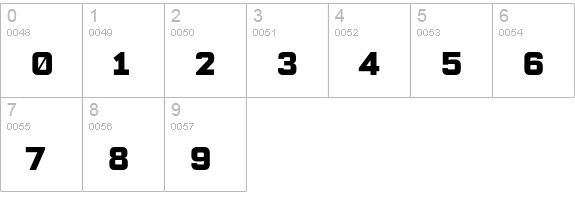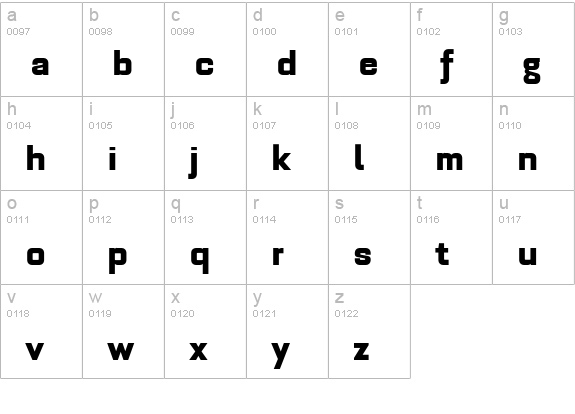
Bourgeois Ultra is an extreme-weight, display variant in the Bourgeois typeface family \xE2\x80\x94 well suited to extreme display use where maximum visual weight is required.
Bourgeois Ultra font exudes sophistication and elegance with its sleek and modern design. The sharp lines and refined curves of this typeface make it perfect for adding a touch of luxury to any project. From branding to editorial design, Bourgeois Ultra commands attention and conveys a sense of style and class. What sets Bourgeois Ultra apart is not only its exquisite design but also the fact that it is available for free download at FontsMarket.com. This means that you can easily access and use this stunning font in your creations without any cost. Whether you're a designer looking to elevate your work or a content creator seeking a premium look, Bourgeois Ultra is a versatile and timeless choice that will enhance any project. Download it now and elevate your design game with this exceptional typeface.